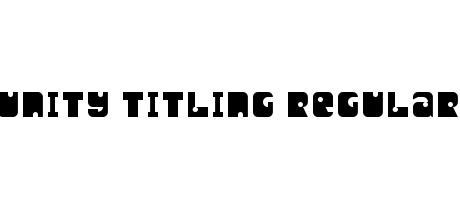
Unity Titling
By James Vipond
Unity Titling Regular boasts a bold, geometric sans-serif design. Its chunky, uppercase letters possess a slightly uneven, almost hand-carved quality, giving it a strong, yet playful personality. The forms are solid and clearly defined, making it highly legible even at large sizes. It’s a font that commands attention with its assertive presence.